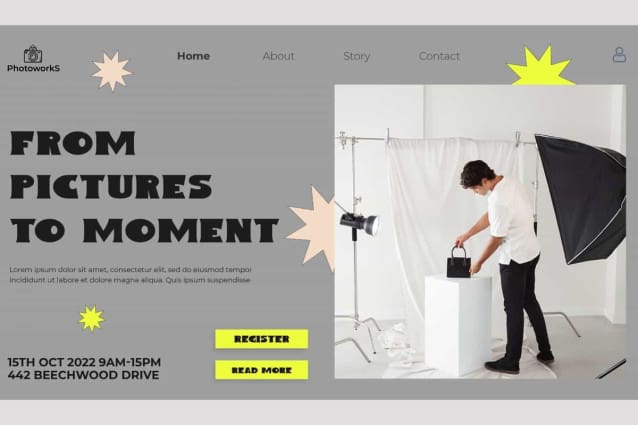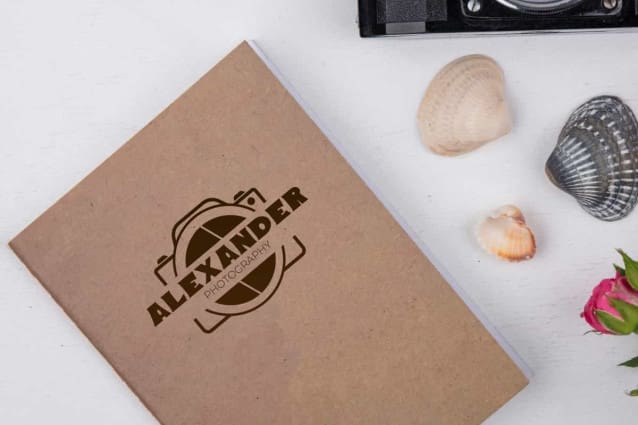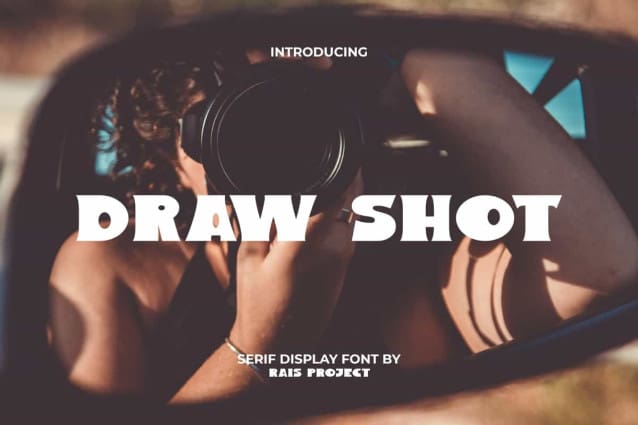
Draw Shot Font
Draw Shot Font is a playful bold serif display font. This bold font is made unique and interesting through the shape and placement of circles in some characters. It will be good for any designs, such as brand image, cover, custom design, flyer, invitation, label, marketing material, poster, product packaging, quotes, signage, stationery, website page, and more!
Draw Shot Font includes a full set of ALL CAPS for Uppercase and Lowercase Letters, Numerals, and large range of Punctuation. This stylish font will be suitable for various industries, such as accessories, advertising, beauty product, cafes, event or festival, fashion, marketing, photography, printing, publishing, etc.